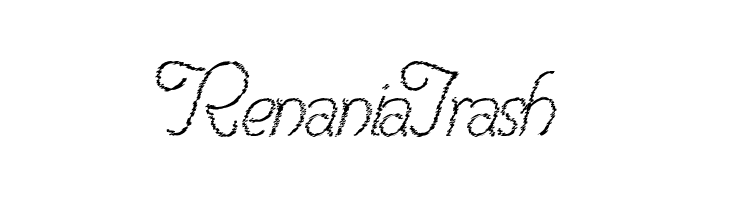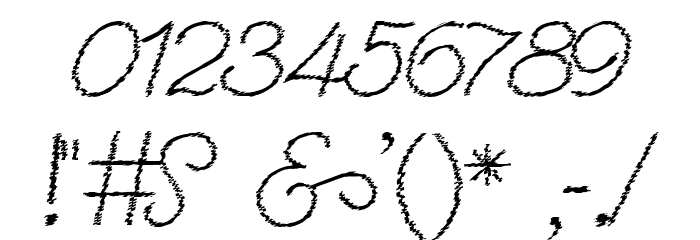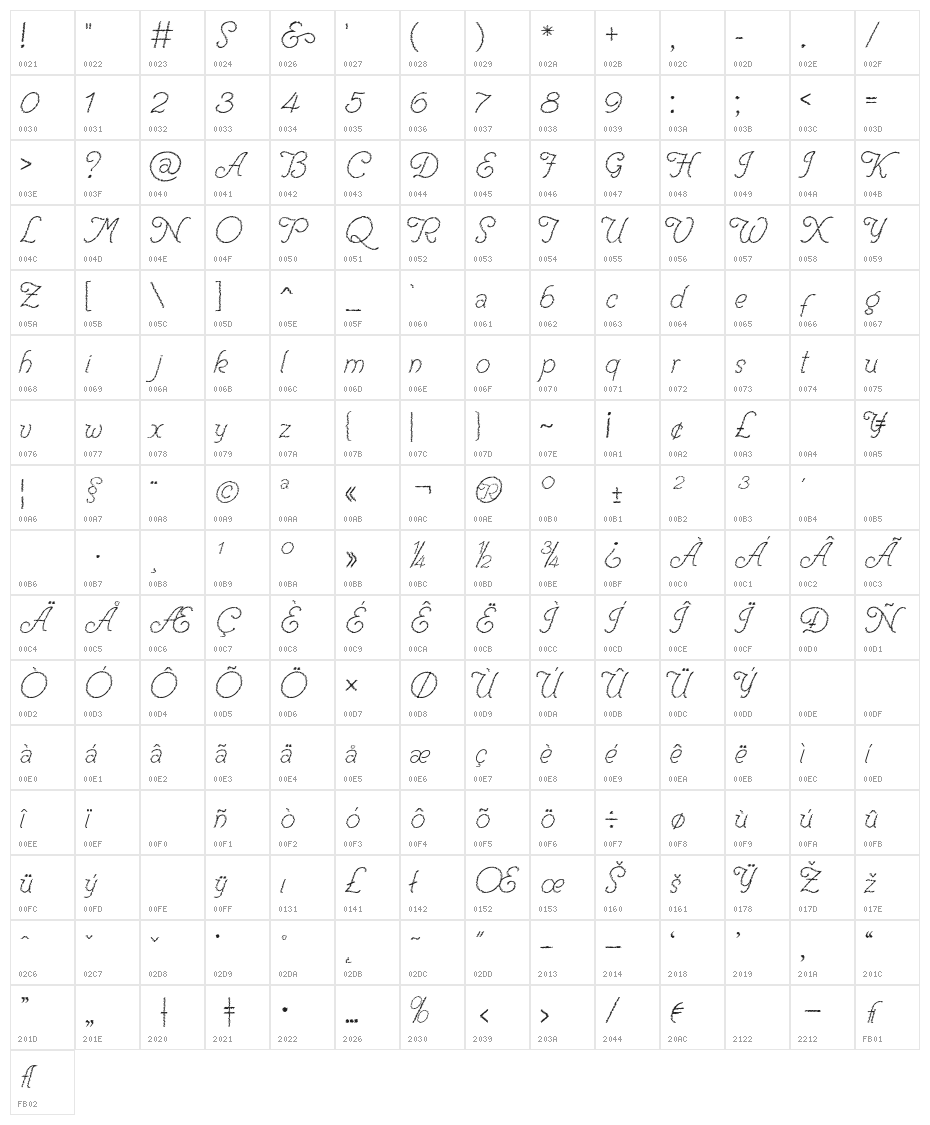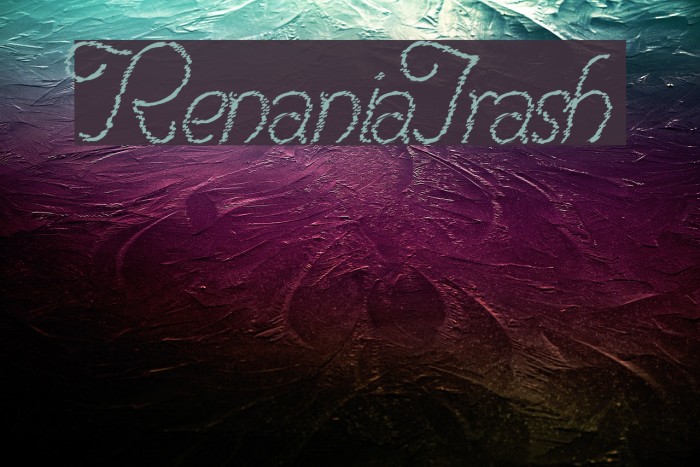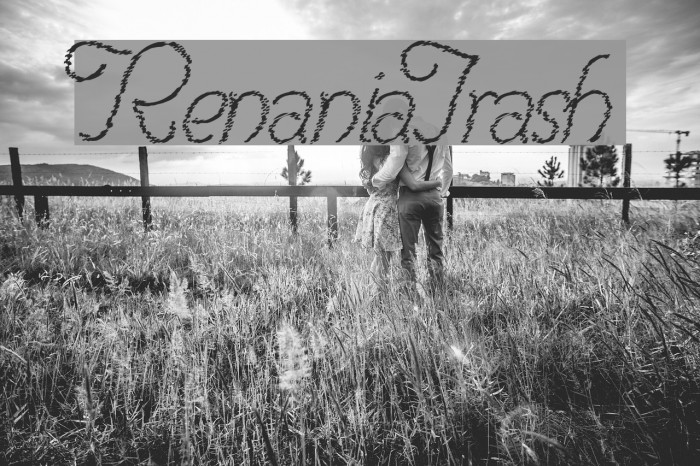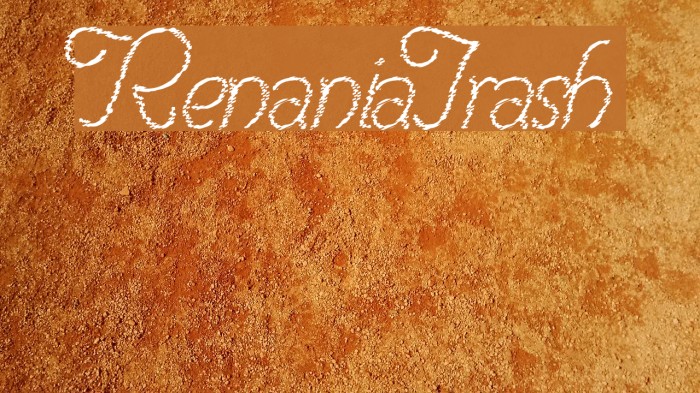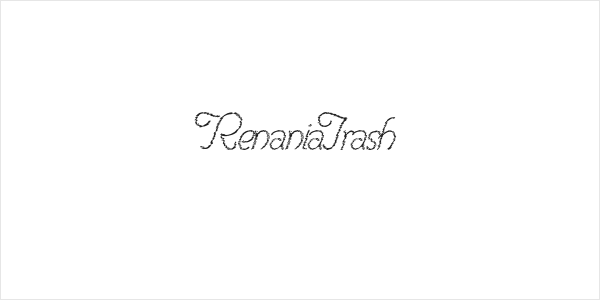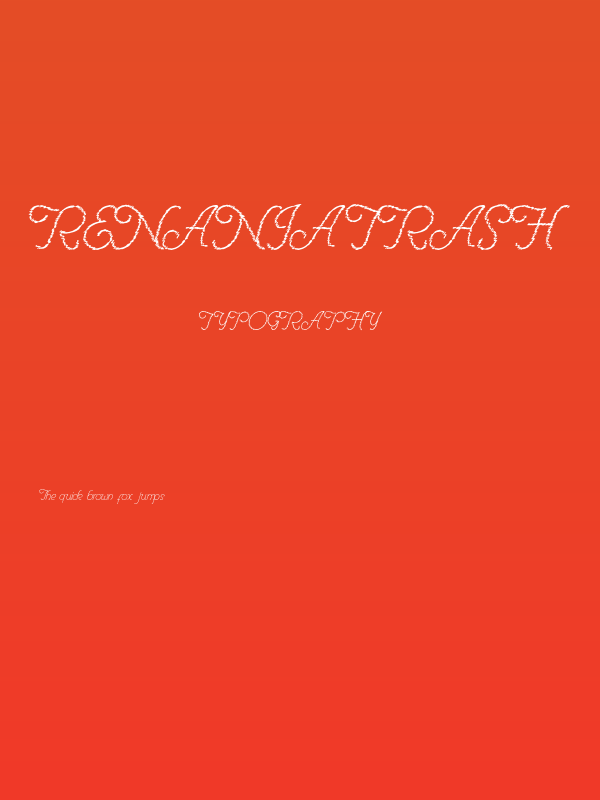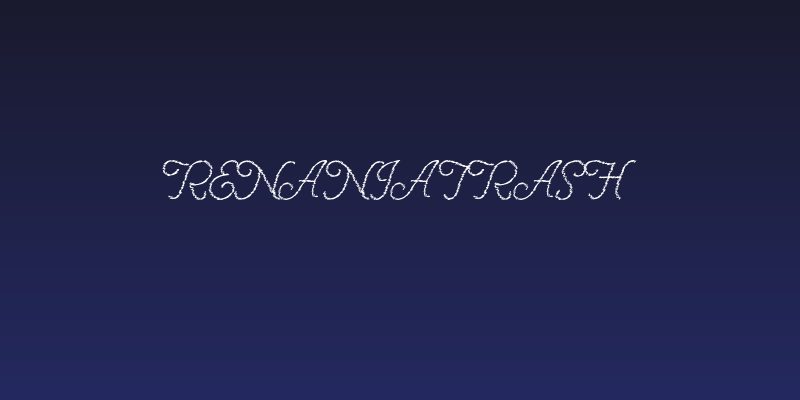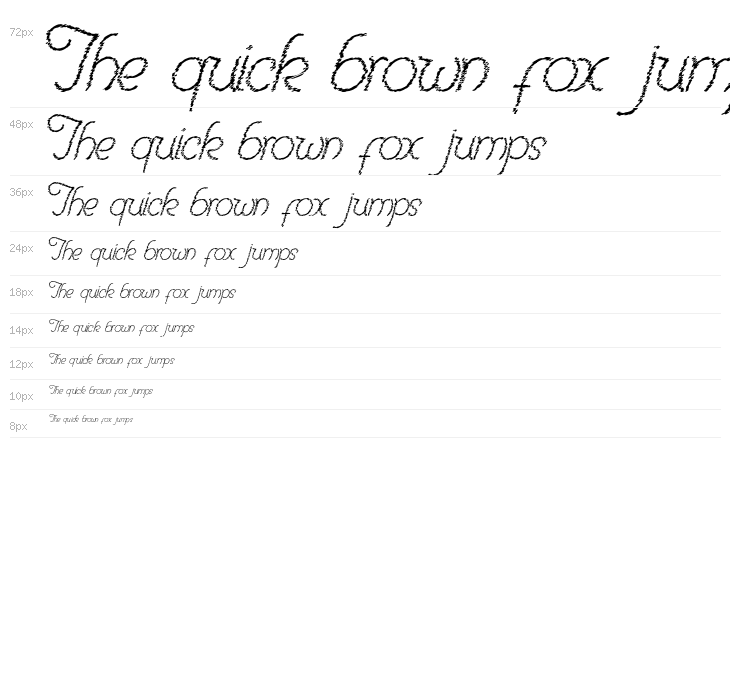
RenaniaTrash Font
RenaniaTrash Description
This font features a unique, textured script style that mimics the appearance of handwriting with a rough, sketch-like finish. The letters are connected in a fluid manner, giving it a dynamic and lively feel. The uppercase letters are elegant and slightly elongated, while the lowercase letters maintain a consistent flow, enhancing readability. Numbers and special characters follow the same textured, cursive design, adding a cohesive look across all characters. This font's distinctive style makes it stand out, perfect for creative projects that require a personal touch.
| Use Case | Logos, Invitations, Artistic Projects |
| Proposed Projects | Ideal for invitations, greeting cards, artistic posters, and branding that requires a personal, handcrafted feel. |